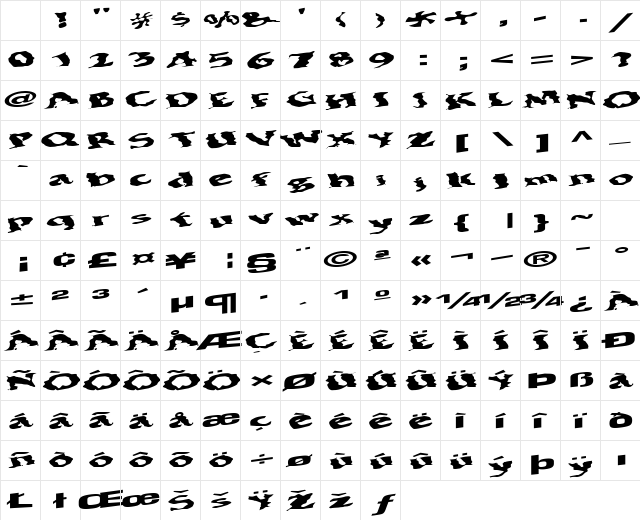
BohemianRap7 Regular
Design Context for BohemianRap7
BohemianRap7 is a composed and adaptable typeface that performs quietly and consistently across a wide range of design contexts.